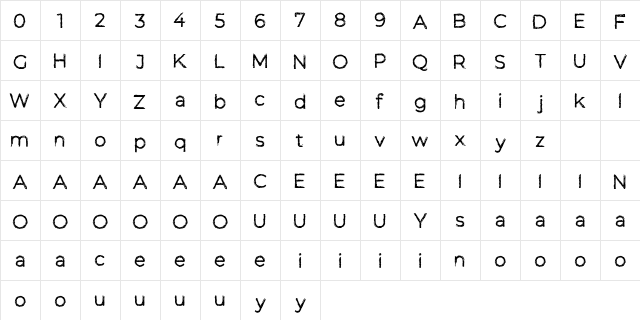
Greepes Bold
| Foundry | Yantodesign Studio Co. |
| Designer | Joko Triwijayanto |
Design Context for Greepes Typeface
Greepes takes a measured approach to typography — its balanced proportions and neutral character make it a reliable workhorse for both digital and print work. Its bold stroke weight gives it real presence on the page.